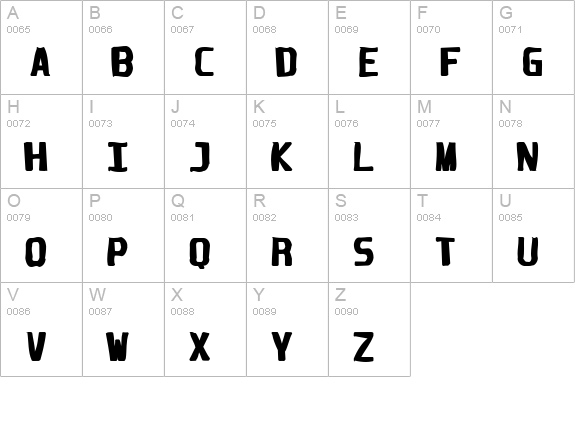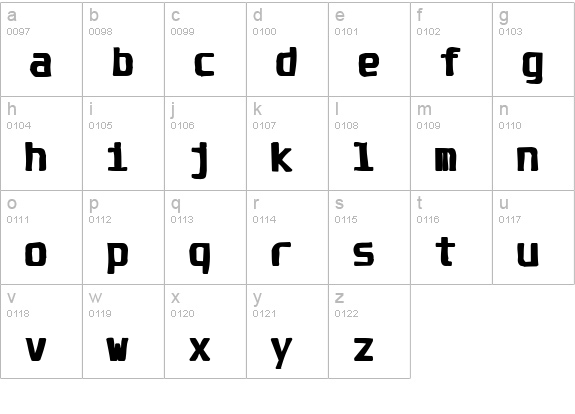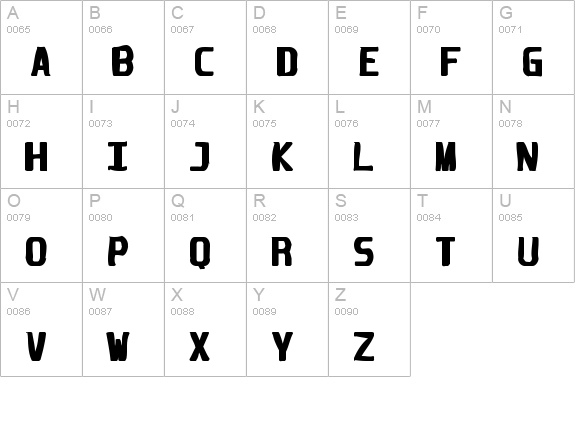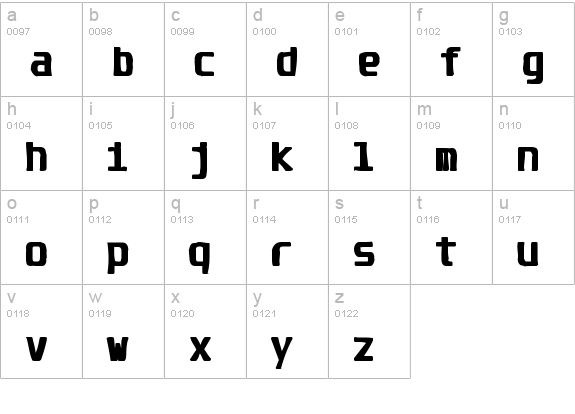
Unispace Ink Font Details
Unispace Ink font is a modern and stylish typeface that exudes sophistication and elegance. With its sleek lines and unique design, Unispace Ink is perfect for adding a touch of refinement to any project. This versatile font is ideal for a wide range of applications, from branding to editorial design. What sets Unispace Ink apart is its effortless blend of classic and contemporary elements, making it a timeless choice for designers looking to make a statement. The fluid strokes and sharp edges of this font create a sense of movement and energy, while its clean lines and balanced proportions ensure readability and clarity. Whether you're working on a logo, website, or print materials, Unispace Ink is sure to make a lasting impression. Best of all, this premium font is available for free download at FontsMarket.com, making it easily accessible to designers and creatives looking to elevate their work. Experience the power and versatility of Unispace Ink font today and take your designs to the next level.